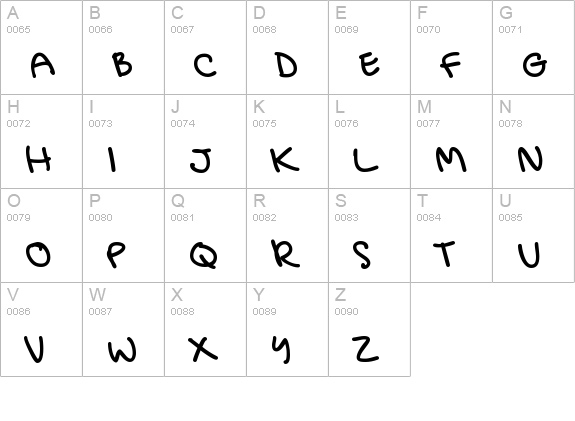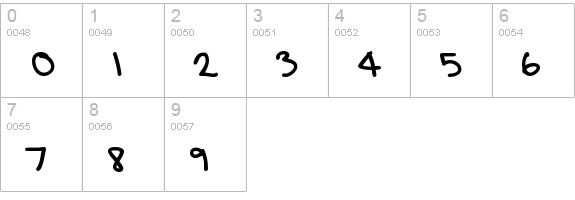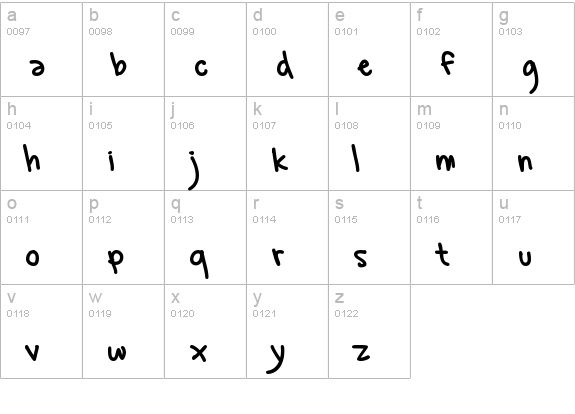
Greg's Hand Font Details
Greg's Hand font is a charming and playful hand-drawn typeface that exudes warmth and friendliness. With its unique handwritten style, this font adds a personal touch to any design project. Whether you're creating greeting cards, invitations, or social media graphics, Greg's Hand font will surely make your text stand out. The fluid strokes and natural flow of this font give it a whimsical and casual feel, perfect for adding a touch of creativity to your work. Its versatility allows it to be used for a variety of purposes, from branding to packaging to posters. And the best part? Greg's Hand font is completely free to download at FontsMarket.com! This means you can easily access this delightful font and start using it in your projects right away. Don't miss out on the opportunity to add a personal and unique flair to your designs with Greg's Hand font.